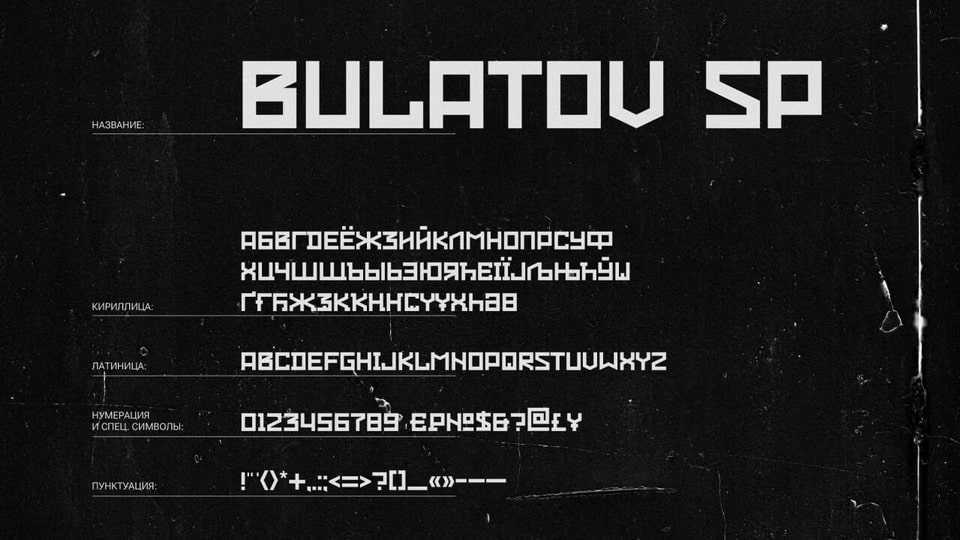
Download Bulatov SP font, a display typeface inspired by the works of Eric Bulatov, Soviet constructivists and the Rodchenko font from Paratype.
Designer: Sasha Pavljenko